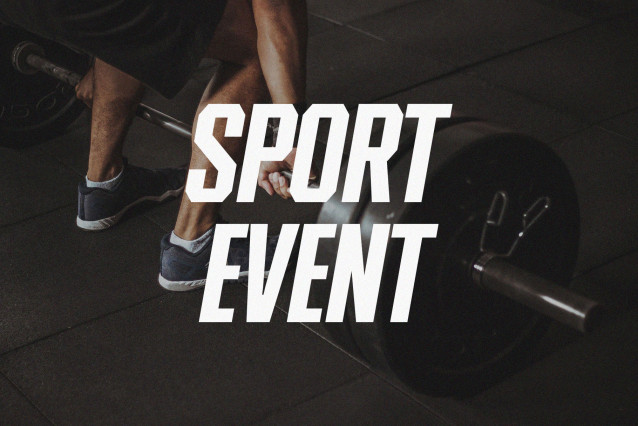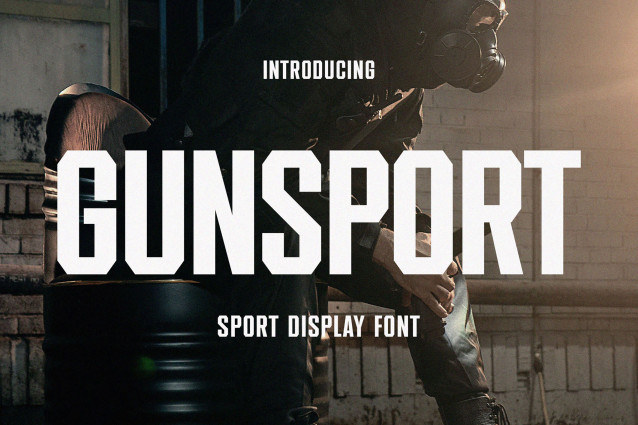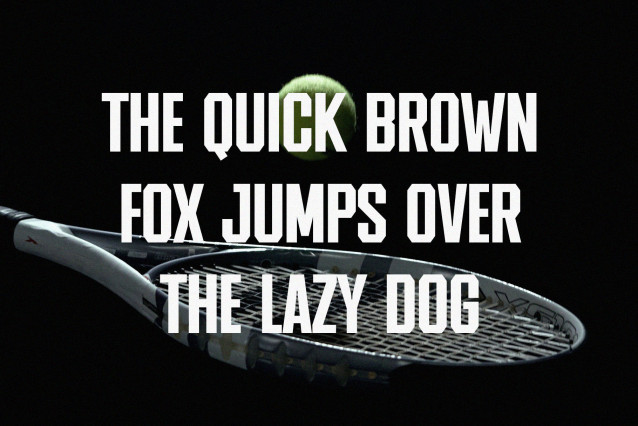
Gunsport Font
Gunsport Font, modern sans serif font with elegant style this is perfect for branding, logos, invitation, magazines, product packaging and more.